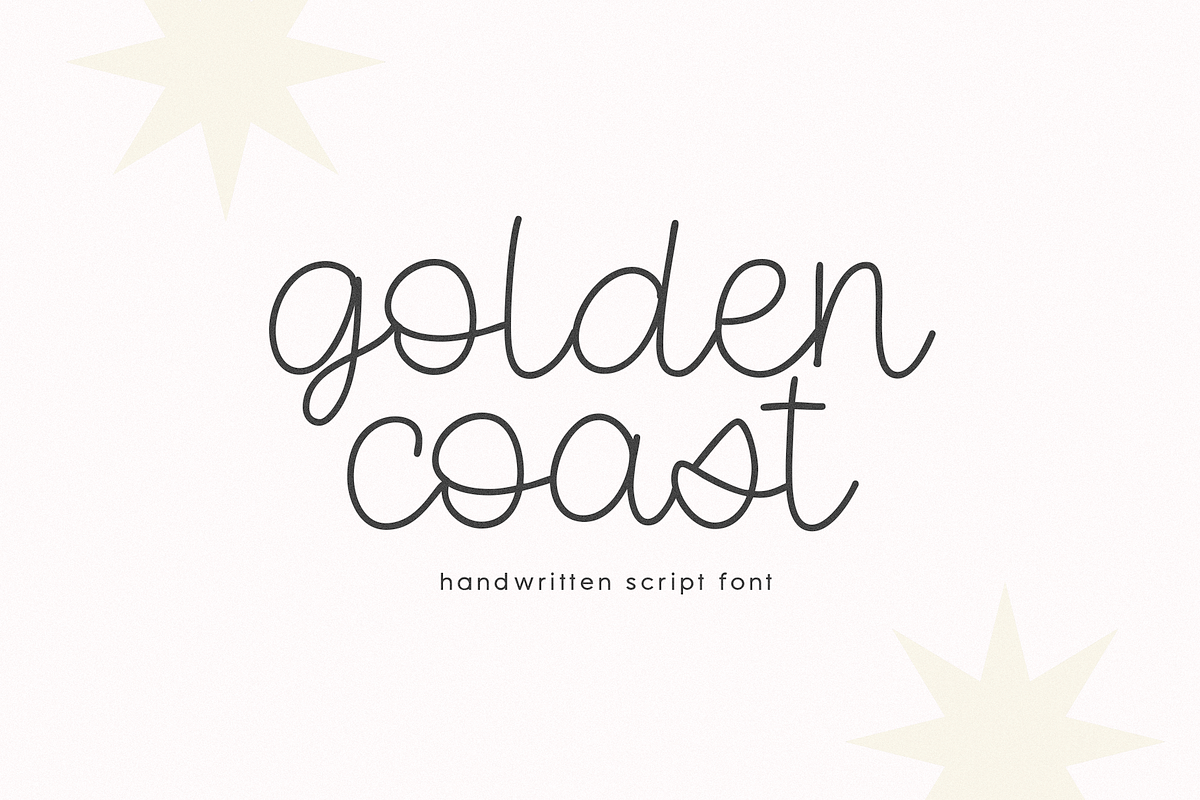
Golden Coast Script Font Free Download is a breezy, elegant handwritten typeface inspired by the relaxed charm of coastal living. With its smooth curves, flowing strokes, and natural rhythm, this script font is perfect for wedding invitations, beach-themed branding, travel blogs, social media graphics, and lifestyle product packaging. It brings a laid-back luxury to any design.
Designed with a modern calligraphy style, Golden Coast Script Font Free Download includes stylistic alternates and ligatures to help you create dynamic, customized text. Whether you're crafting a sun-soaked logo or a dreamy quote, this font adds a touch of warmth and personality to your work.